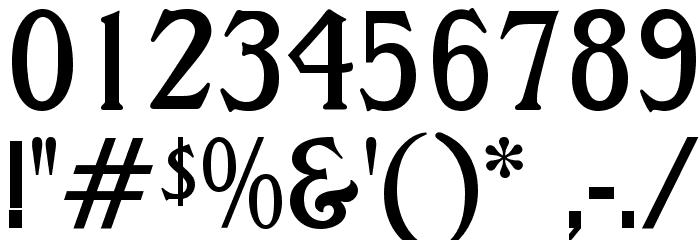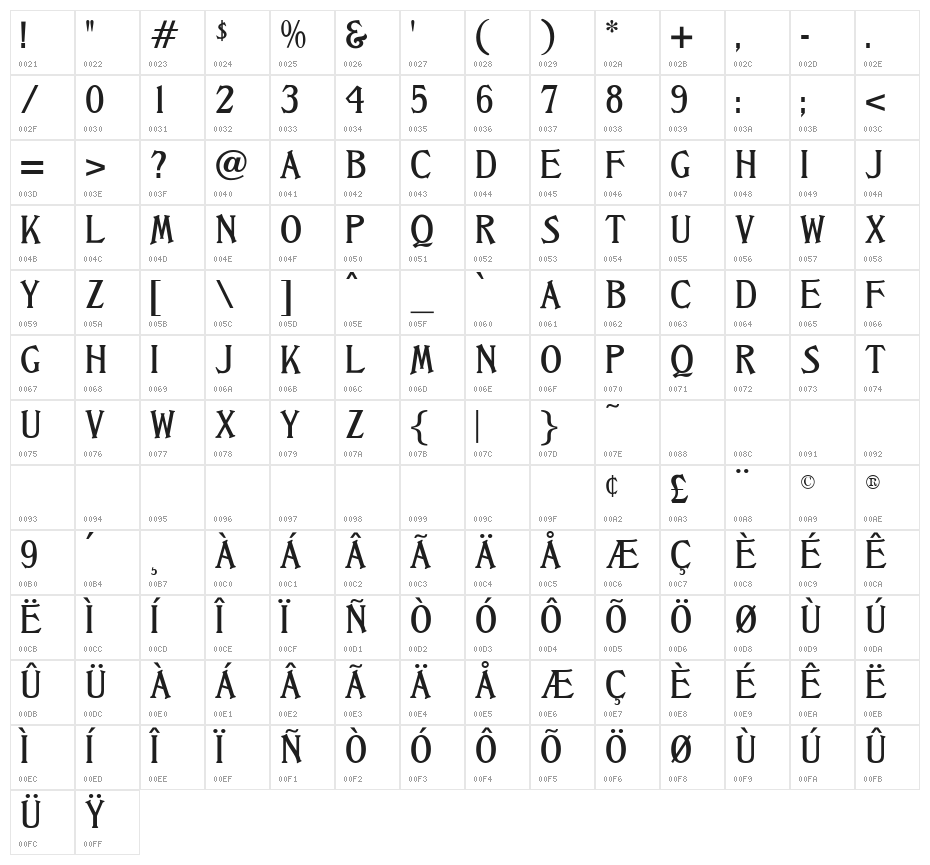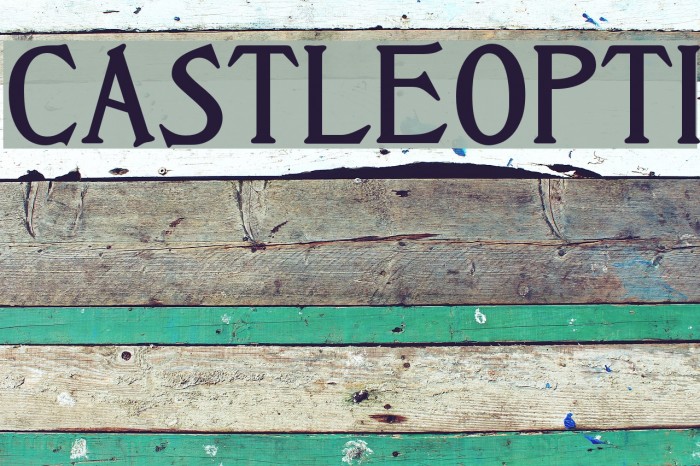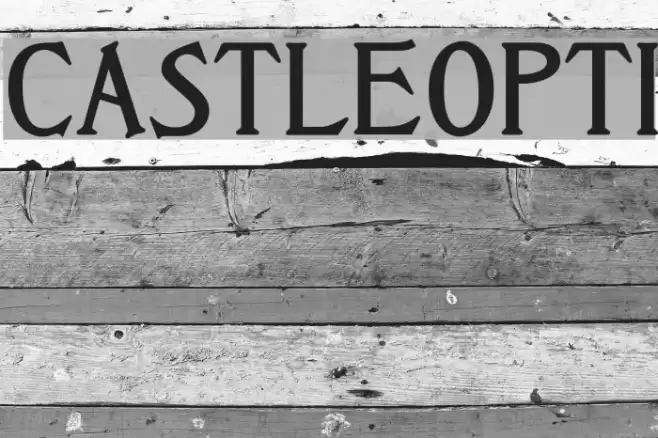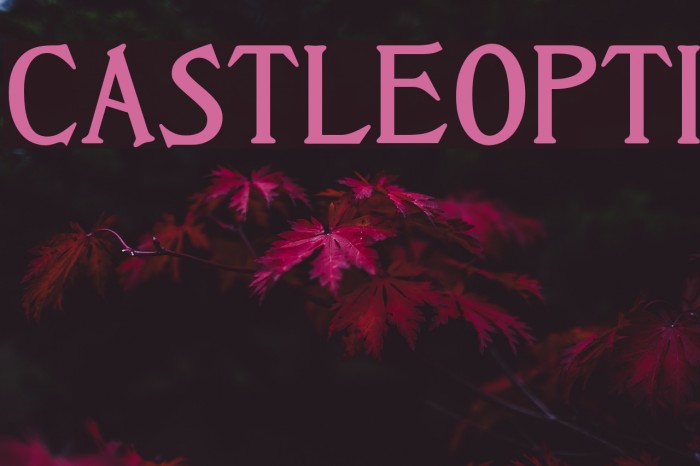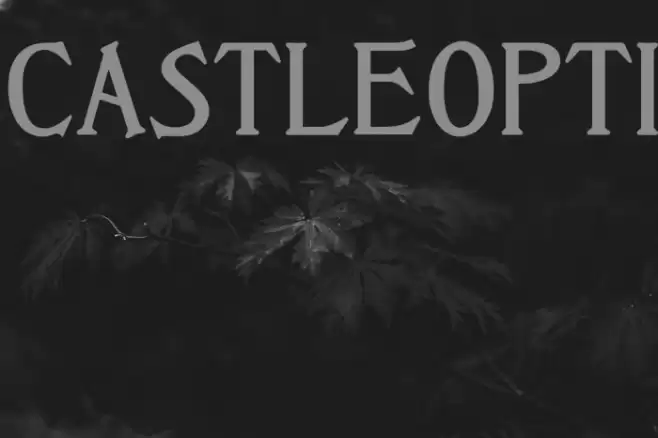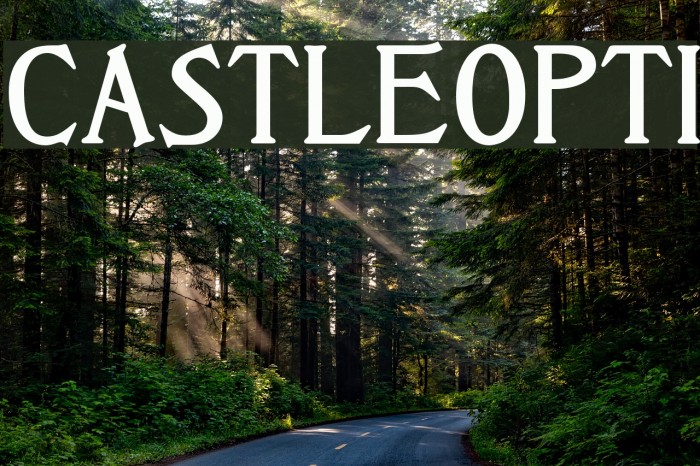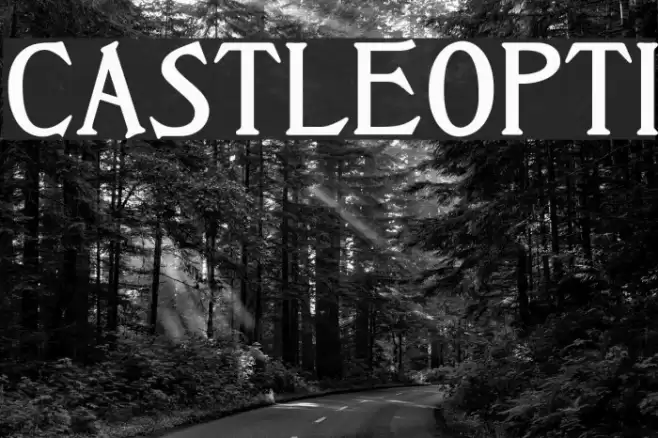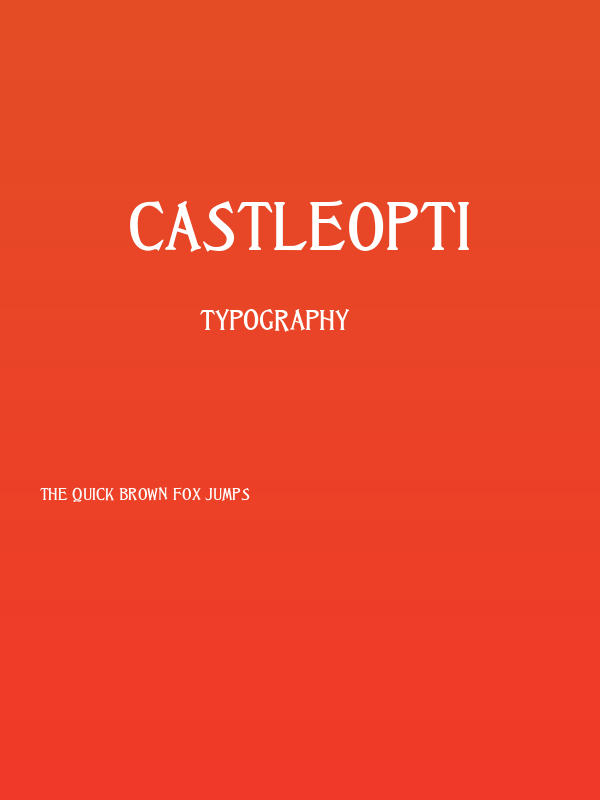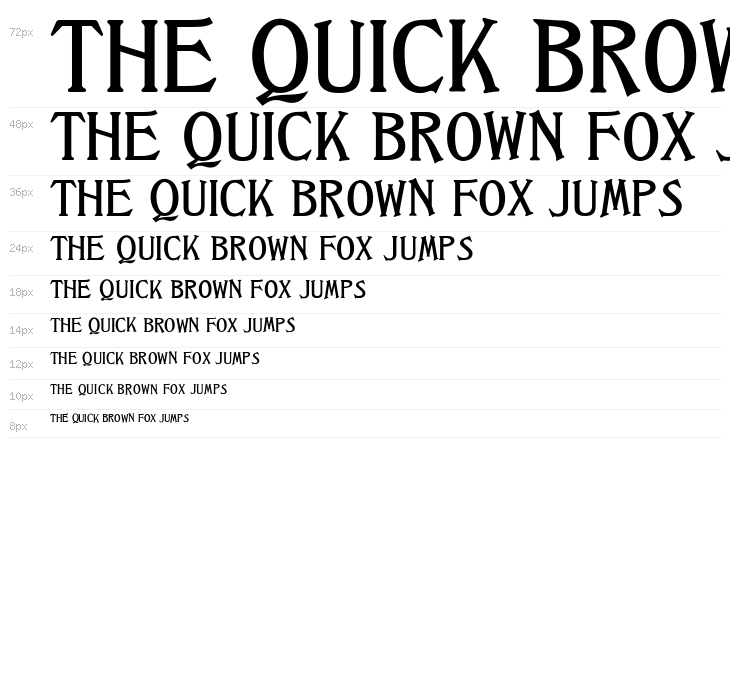
CastleOpti Font
CastleOpti Description
This font features a distinctive and bold design with sharp, angular serifs that give it a medieval and gothic appearance. The uppercase letters are particularly striking, with a strong presence and unique character shapes that evoke a sense of history and tradition. The lowercase letters maintain this style, offering a consistent look throughout. The numerals are clear and legible, with a slightly narrower design that complements the overall aesthetic. Special characters are well-integrated, maintaining the font's bold and dramatic style. This font is ideal for projects that require a touch of elegance and historical flair.
| Overall Style | Gothic, Medieval, Elegant |
| Use Case | Headlines, Logos, Book covers |
| Proposed Projects | Ideal for book covers, historical themed projects, branding for luxury products, or any design requiring a touch of elegance and tradition. |